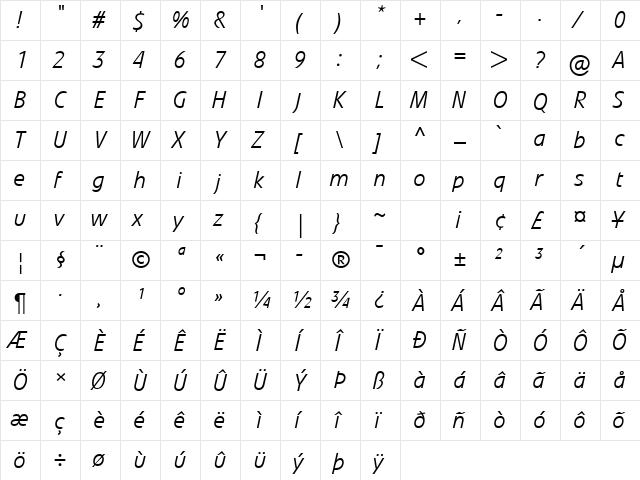
Veto Com Light Italic Font Preview
| Foundry | Linotype GmbH |
| Designer | Marco Ganz |
Design Context for Veto Com Typeface
Veto Com offers clean, dependable letterforms without strong stylistic allegiance, making it a practical choice for designers who need flexibility. Its italic angle brings a sense of urgency and motion to the letterforms. Its slender proportions lend an understated elegance to any composition.
Pro Tip: Try Veto Com for annotation and caption copy alongside an upright companion — the contrast in angle creates a dynamic but ordered typographic system.